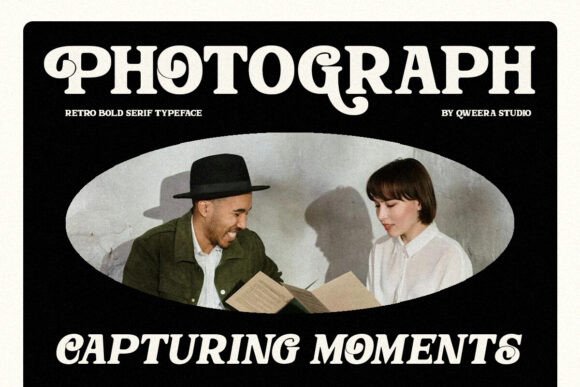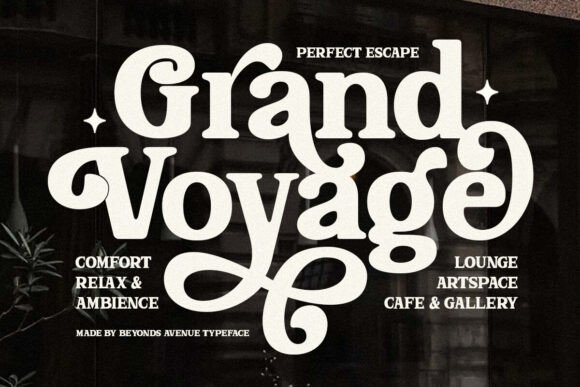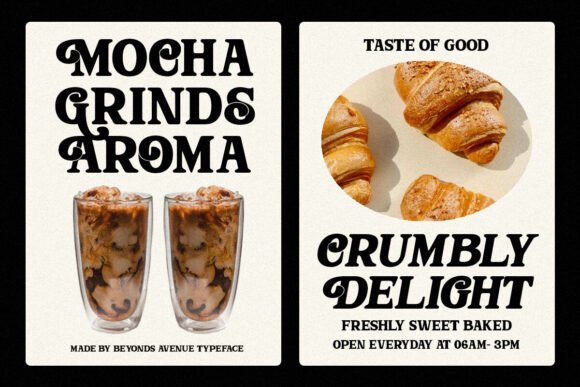
Beyonds Avenue Font
Beyonds Avenue – Stylish Retro Bold Serif Font for Bold and Elegant Designs Beyonds Avenue is more than just a font—it’s a bold and versatile retro serif typeface that combines classic charm with modern sophistication. Designed to deliver a strong and impactful impression, this font comes with stylish alternates and ligatures, making it perfect for creating unique and customized designs. Whether you’re working on posters, magazines, branding, or print projects, Beyonds Avenue adds a cool, retro vibe to your creations.Where Retro Boldness Meets Modern Versatility Beyonds Avenue stands out with its bold serif design and stylish features, offering endless creative possibilities. Its versatility makes it ideal for projects that demand a strong and elegant aesthetic, from editorial layouts to creative branding. This font isn’t just a tool—it’s a statement of creativity and individuality.Elevate Your Designs with Beyonds Avenue isn’t just a font—it’s a tool to transform your creative projects into bold, retro-inspired masterpieces. Whether you’re designing for print, digital, or branding, this font ensures your work stands out with elegance and impact.Ready to make a bold statement? Add Beyonds Avenue to your collection today and let your projects shine with stylish retro elegance!